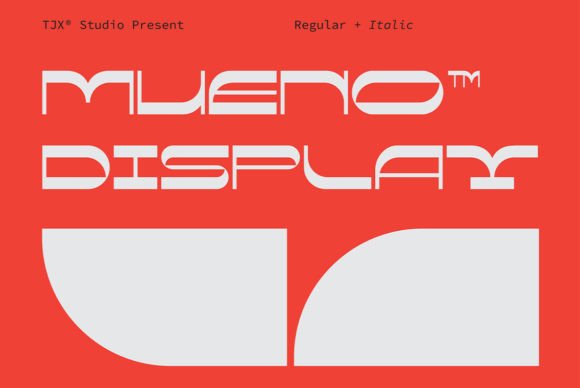
Introducing Mueno Font, the game-changing display font that will set your modern CV apart from the ordinary. This meticulously crafted masterpiece from TJX® Studio captures the essence of contemporary retro culture with its striking all-capital letters and sleek design. Mueno is not just a font; it's a statement of creativity and individuality that speaks volumes about your professional aspirations.
With Mueno, your CV transforms into an eye-catching masterpiece that demands attention from recruiters. Its bold, confident strokes command respect and exude an air of sophistication that sets you above the competition. Whether you're a seasoned professional or a young talent seeking to make a lasting impression, Mueno is your trusted companion on the path to success.
Beyond its aesthetic brilliance, Mueno is a highly versatile font that adapts seamlessly to various design elements. Its clean lines and crisp edges blend effortlessly with logos, posters, signage, and packaging, giving your creative projects an unforgettable presence. Designers and artists alike will appreciate Mueno's versatility, as it empowers them to explore boundless creative possibilities.
Elevate your design game with Mueno, the font that embodies modern sophistication. Its timeless appeal ensures that your creations remain relevant and impactful for years to come. It's more than just a font; it's an investment in your professional growth and creative expression. Embrace Mueno today and unleash the power of captivating typography.